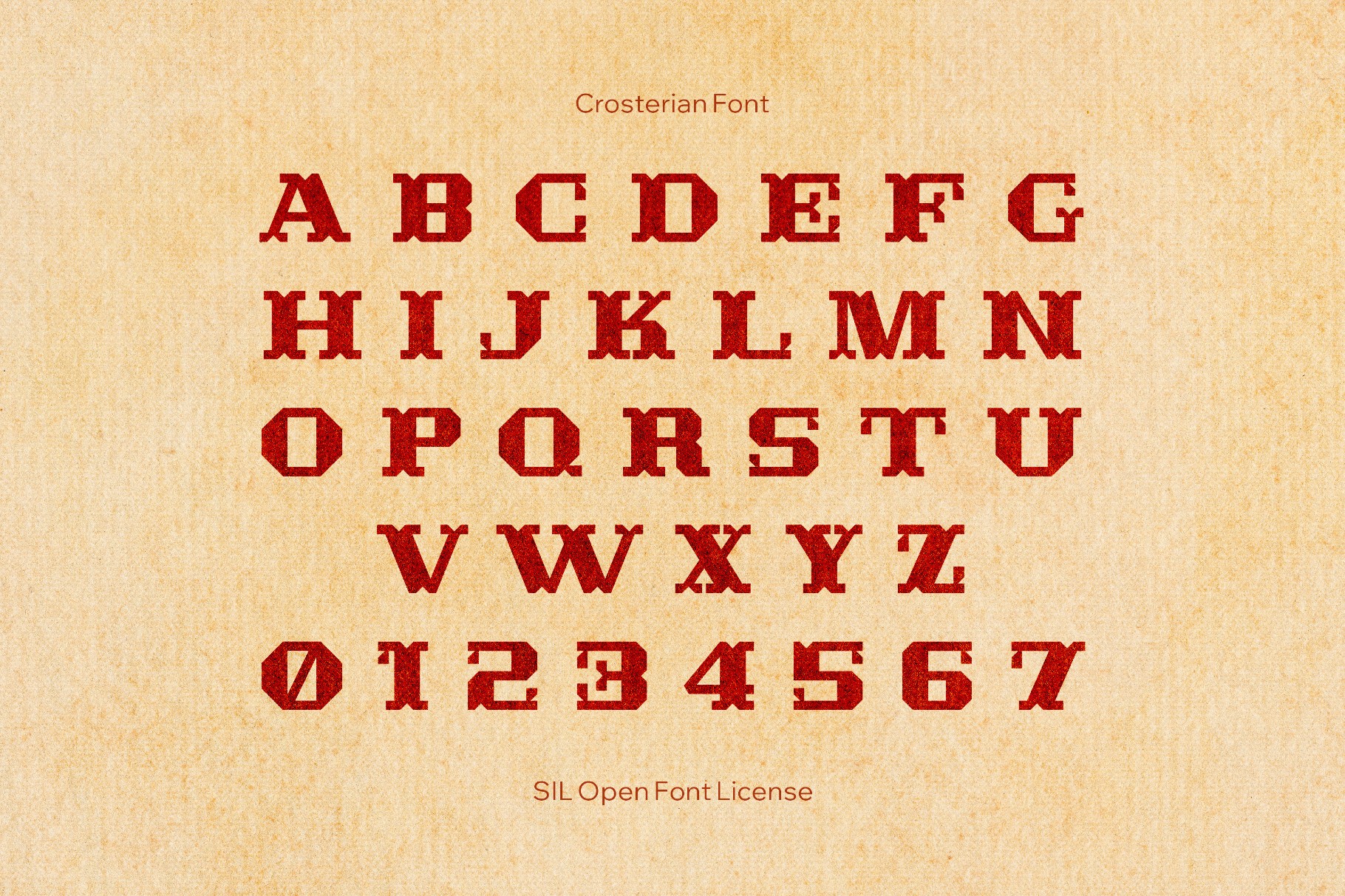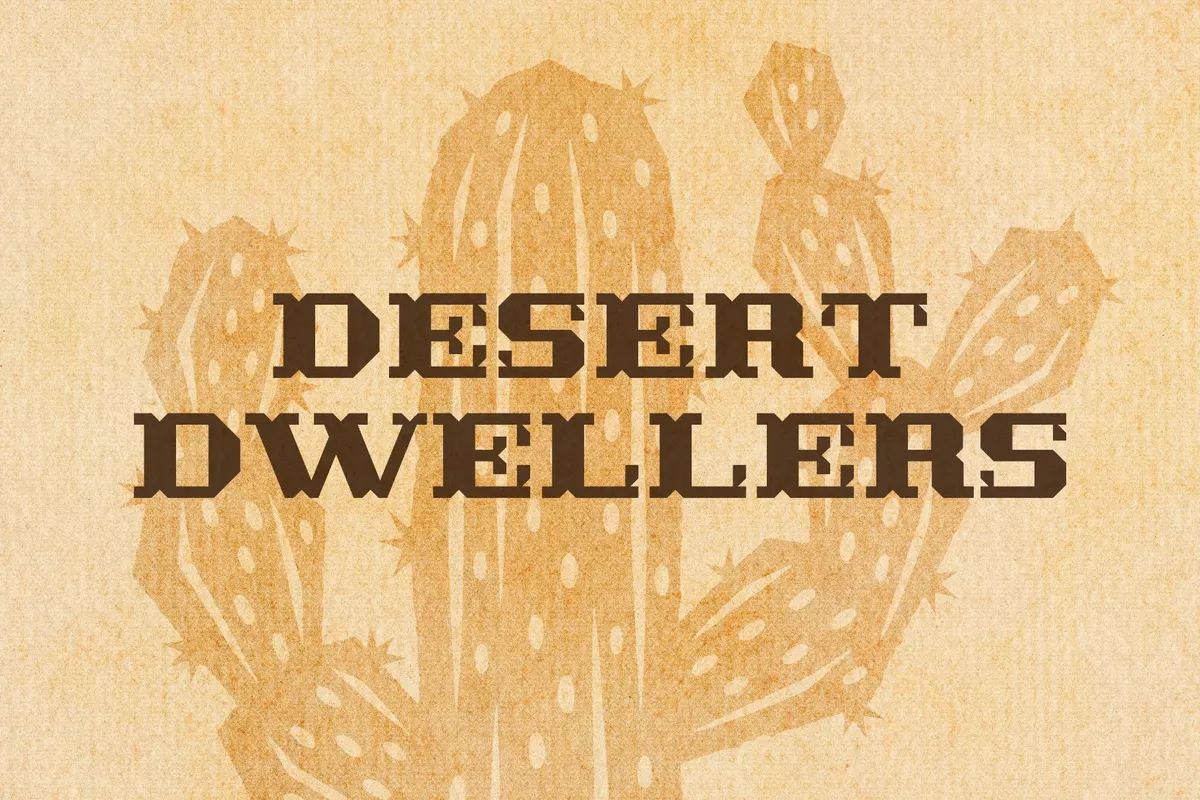
Crosterian Font
Crosterian
All-caps Crosterian font strikes a sharp blackletter tone rooted in medieval manuscript tradition and Gothic revival print. It’s ideal for band logos, tattoo-inspired graphics, fantasy and RPG materials, poster headlines, craft beer labels, editorial mastheads, and event flyers that want ceremony with bite. It also plays well in packaging accents and short pull-quote treatments.
- Only uppercase letters, numbers, punctuation, and symbols.